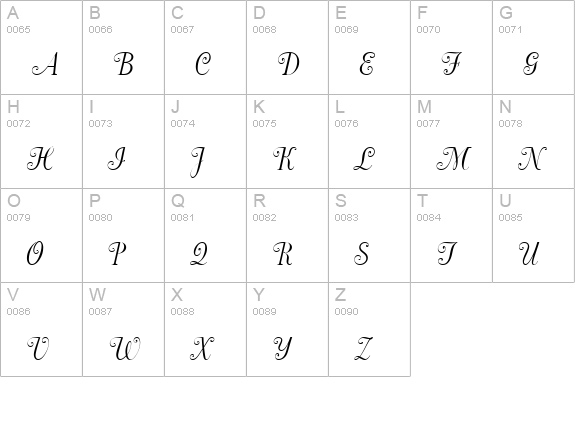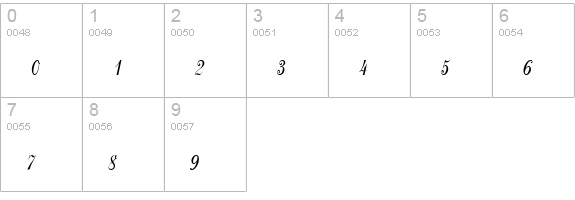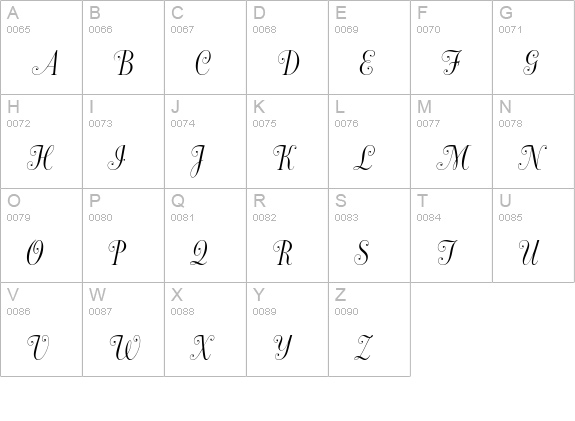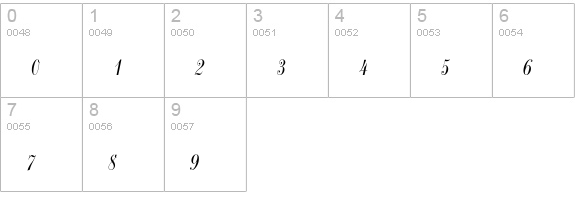
PFNeuScript Font Details
Introducing PFNeuScript font, a modern and elegant typeface that effortlessly combines sophistication with a touch of whimsy. This unique font exudes charm and individuality, making it perfect for a wide range of design projects. PFNeuScript features sleek lines and graceful curves that create a sense of fluidity and movement, making it ideal for adding a touch of personality to your designs. With its stylish and contemporary look, this font is versatile enough to be used for anything from logos and branding to invitations and social media graphics. What's even better is that PFNeuScript is available for free download at FontsMarket.com. Now you can easily access this beautiful font and elevate your design projects without breaking the bank. Don't miss out on the opportunity to enhance your creations with the sophisticated charm of PFNeuScript font. Download it today and let your creativity soar!